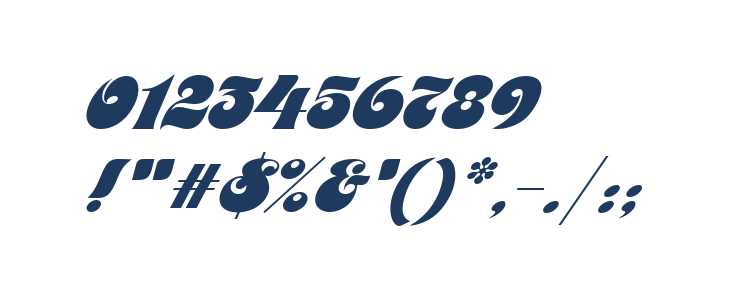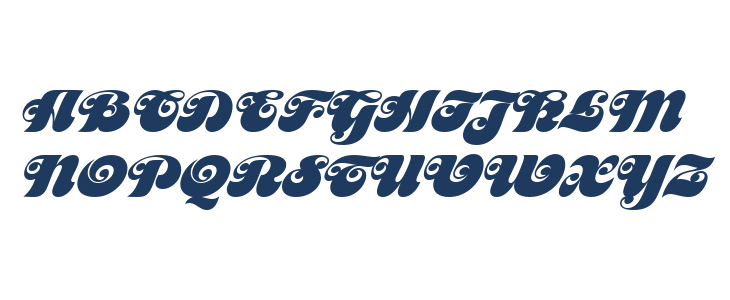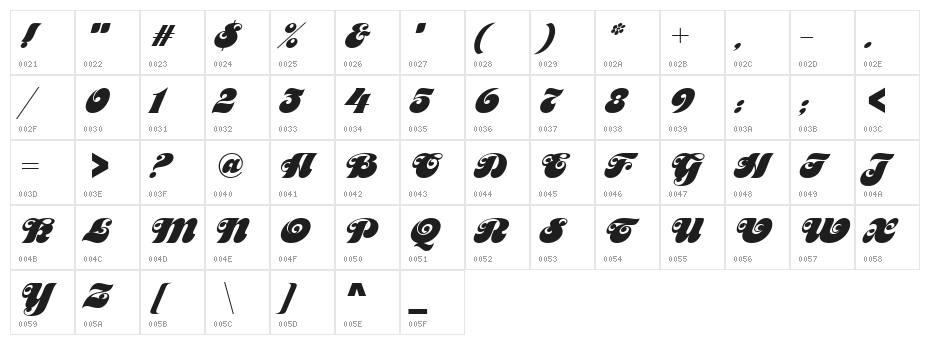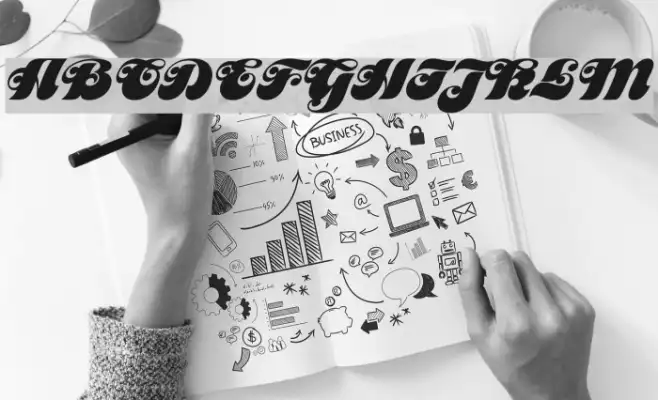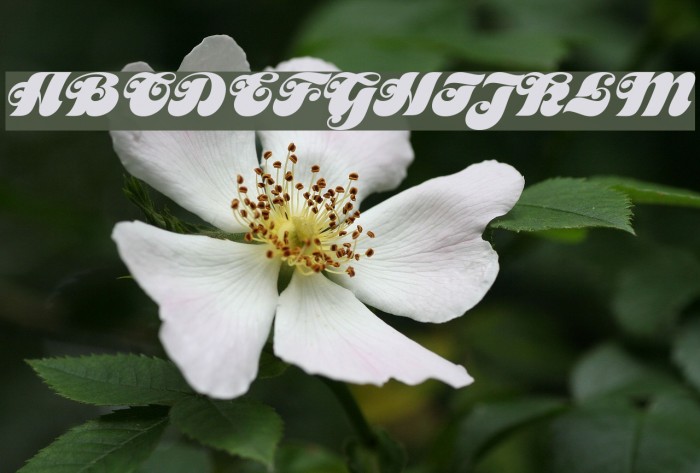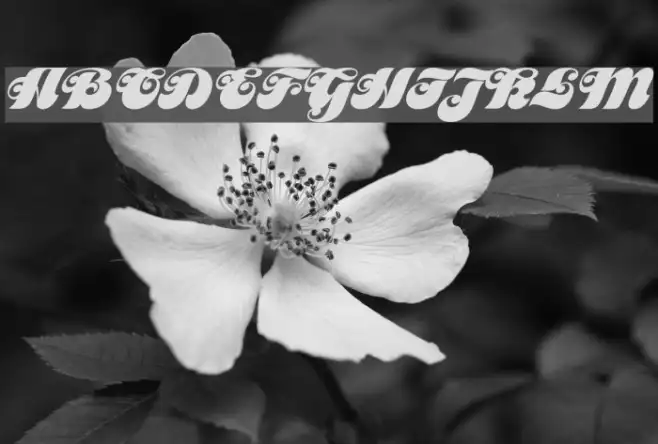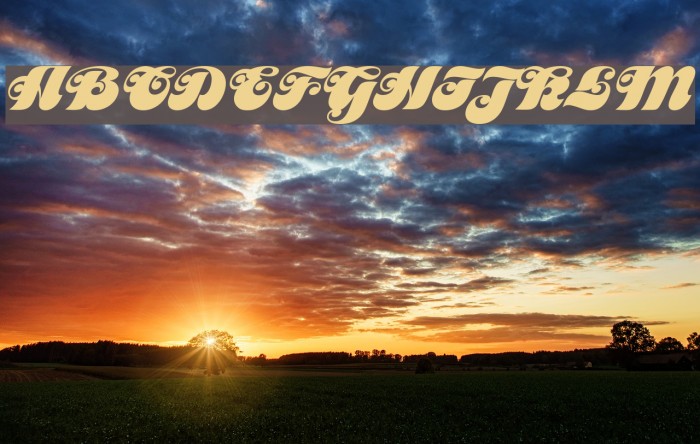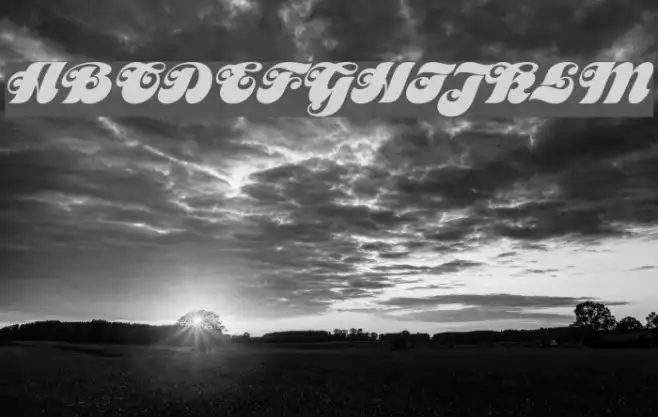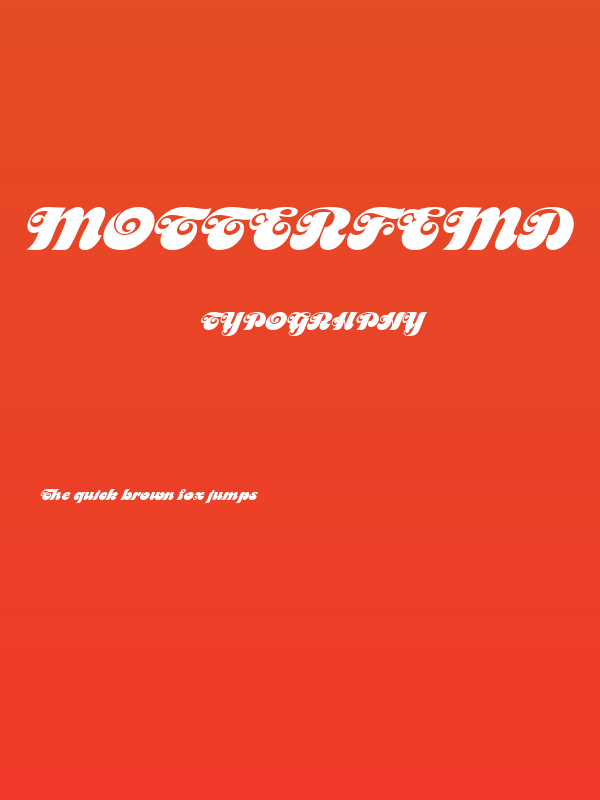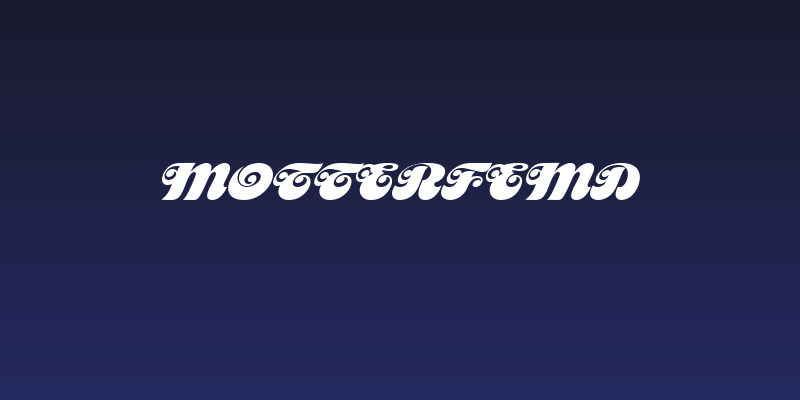
MotterFemD Font
MotterFemD Description
This font is a bold and expressive typeface with a strong presence. It features thick, rounded strokes with a high contrast between thick and thin lines, giving it a dynamic and energetic appearance. The characters are closely spaced, creating a compact and impactful look. The uppercase letters are particularly striking, with unique flourishes and curves that add a decorative touch. The lowercase letters maintain the bold style, ensuring consistency throughout the typeface. The numerals are equally bold, with a distinctive style that matches the overall aesthetic. Special characters are included, each designed with the same attention to detail and flair.
| Proposed Projects | Ideal for branding, poster design, and any project requiring a bold, eye-catching typeface. |